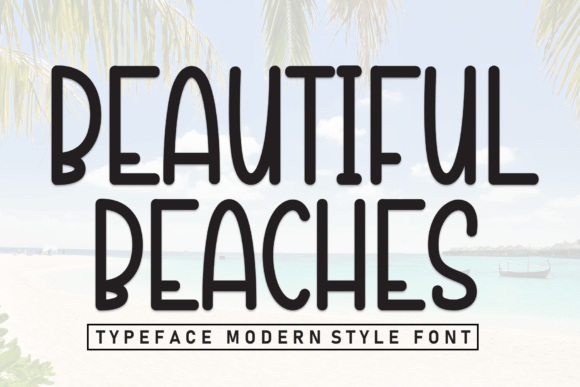
Where Creativity Meets Serenity
As I sat on the beach, watching the sunset with my loved one, I couldn’t help but feel inspired by the gentle waves and soft sand. The peaceful atmosphere sparked an idea, and before I knew it, I was jotting down notes and sketching out ideas for my next design project. The beach has a way of sparking creativity, and today, I want to share with you a font that captures that same carefree spirit.
Meet Beautiful Beaches Font, a sweet and friendly handwritten display font that’s perfect for adding a touch of whimsy to your designs. Whether you’re creating wedding invitations, cards, or any other project that needs a fun twist, Beautiful Beaches Font is sure to bring a smile to your face. As a designer, you know how valuable it is to have the right tools at your disposal – and Beautiful Beaches Font is a valuable addition to any design arsenal.
Beautiful Beaches Font Key Features
- Unique Characteristics: Hand-drawn design with subtle texture and subtle gradient effects, giving it a natural and beachy feel
- Font Weight: Includes 6 font weights, from Light to Extra Bold, for flexibility in design
Beautiful Beaches Font Review
I recently had the chance to work with the “Beautiful Beaches Font”, and here’s my honest take on it. ✨ The font’s natural, handwritten feel is perfect for projects that require a touch of whimsy and personality. It’s great for titles, headings, and other design elements where you want to add a bit of flair. The font’s irregularities and imperfections make it feel more human and relatable.
One of the things I love about the “Beautiful Beaches Font” is its versatility. ✨ It works well in both digital and print designs, and it’s suitable for a wide range of industries, from fashion to food and travel. It’s also highly customizable, allowing you to adjust the spacing, size, and color to fit your design needs.
While the “Beautiful Beaches Font” is a great addition to any designer’s toolkit, there are a few limitations to be aware of. ⚠️ For one, it may not be the best choice for projects that require a high level of professionalism or formality. Additionally, the font’s irregularities can sometimes make it difficult to read, especially in small sizes or at a distance.
What to Expect
- ✨ Natural, handwritten feel
- ✨ Versatile and suitable for various industries
- ✨ Highly customizable
- ⚠️ May not be suitable for formal or professional projects
- ⚠️ Can be difficult to read in small sizes or at a distance
Tips for Getting the Most Out of Beautiful Beaches Font
Use Beautiful Beaches Font to create a relaxed, beachy vibe in your designs.
Pair it with images of palm trees, sunsets, and ocean waves for a cohesive look.
Use Beautiful Beaches Font for:
Beach-themed designs and marketing materials.
Travel and tourism promotions.
Summer-themed events and party invitations.